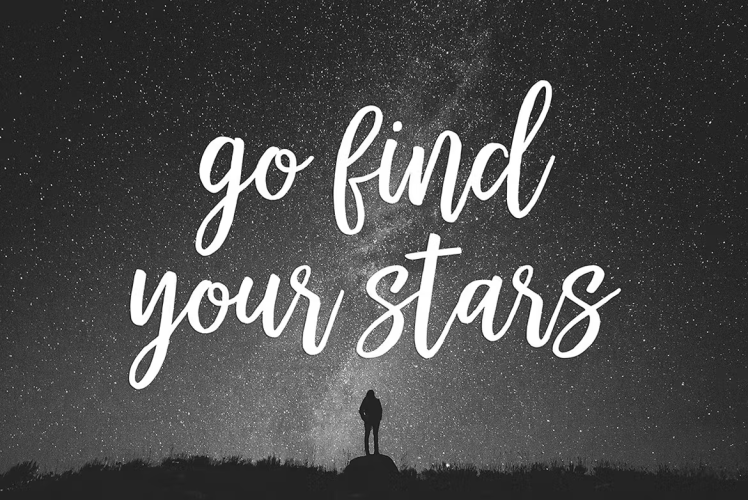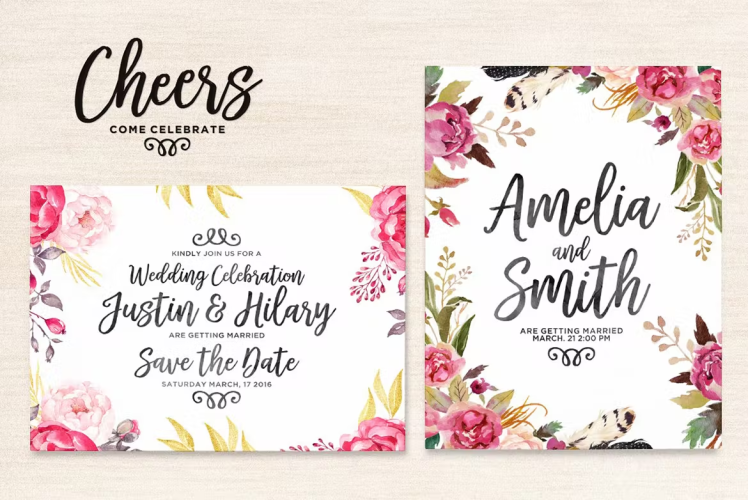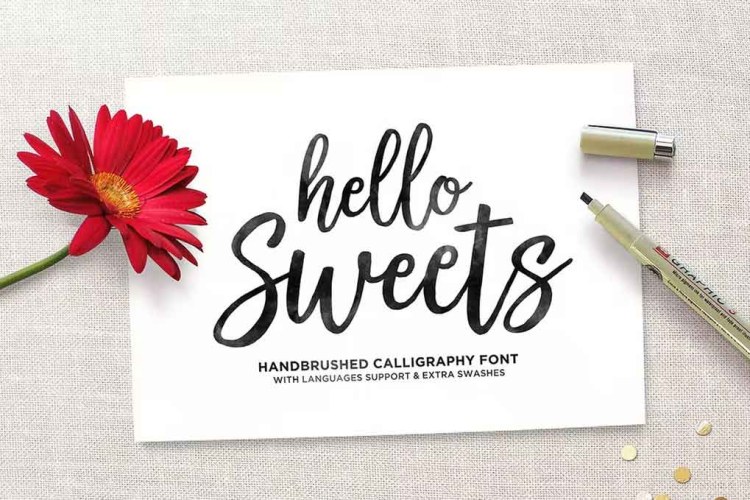
Hello Sweets Script Font
Hello Sweets is a hand-brushed modern calligraphy script font, created with both pen & brush. dancing baseline with separate swashes that can be applied to the beginning…
Hello Sweets is a hand-brushed modern calligraphy script font, created with both pen & brush. dancing baseline with separate swashes that can be applied to the beginning and ends of all lowercase. Were painted on paper. scanned, vectorized and carefully made into a font. Hello Sweets includes several ligatures, alternates and international support for most western languages. For the separate swashes font, type lowercase a-z for the beginning swashes and end swashes (can not access to a glyphs panel. need to add swashes manually). Ideal for logo, wedding invitations, businness card, poster, merchandise, greeting cards, prints, blog banners, apparel, quotes and so much more!
Where Hello Sweets Script Font works best
A short phrase in Hello Sweets Script Font carries warmth that a typeset sans cannot fake; keep the rest of the card plain.
Chalkboard-style headings in Hello Sweets Script Font make a menu feel hand-made. Keep the dish descriptions in a simple face so prices stay readable.
One line of Hello Sweets Script Font over a photo is enough; the script carries the tone and the caption does the work.
What kind of work does Hello Sweets Script Font suit?
It sits in the Script And Handwritten group and reads as branding, calligraphy, modern, script. That makes it a candidate wherever those qualities help: headings, packaging, social graphics and brand work. Set it at the size you plan to use before deciding.